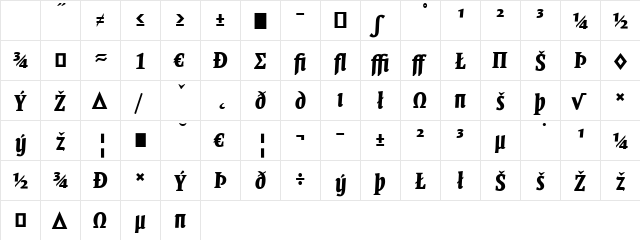
Quadraat Display is built around its visual character rather than neutral utility - its distinctive forms are designed to make an impression at display sizes. The slanted form adds forward momentum and visual energy. Its bold stroke weight gives it real presence on the page.
Font Pairing: Pair with a clean neutral sans-serif for body copy to let Quadraat Display's character lead without overwhelming the composition.
Pro Tip: Use Quadraat Display exclusively at display sizes - it was designed to be seen, not read at length. Let a neutral companion handle body copy.
Who designed the Quadraat Display Bold Italic font?